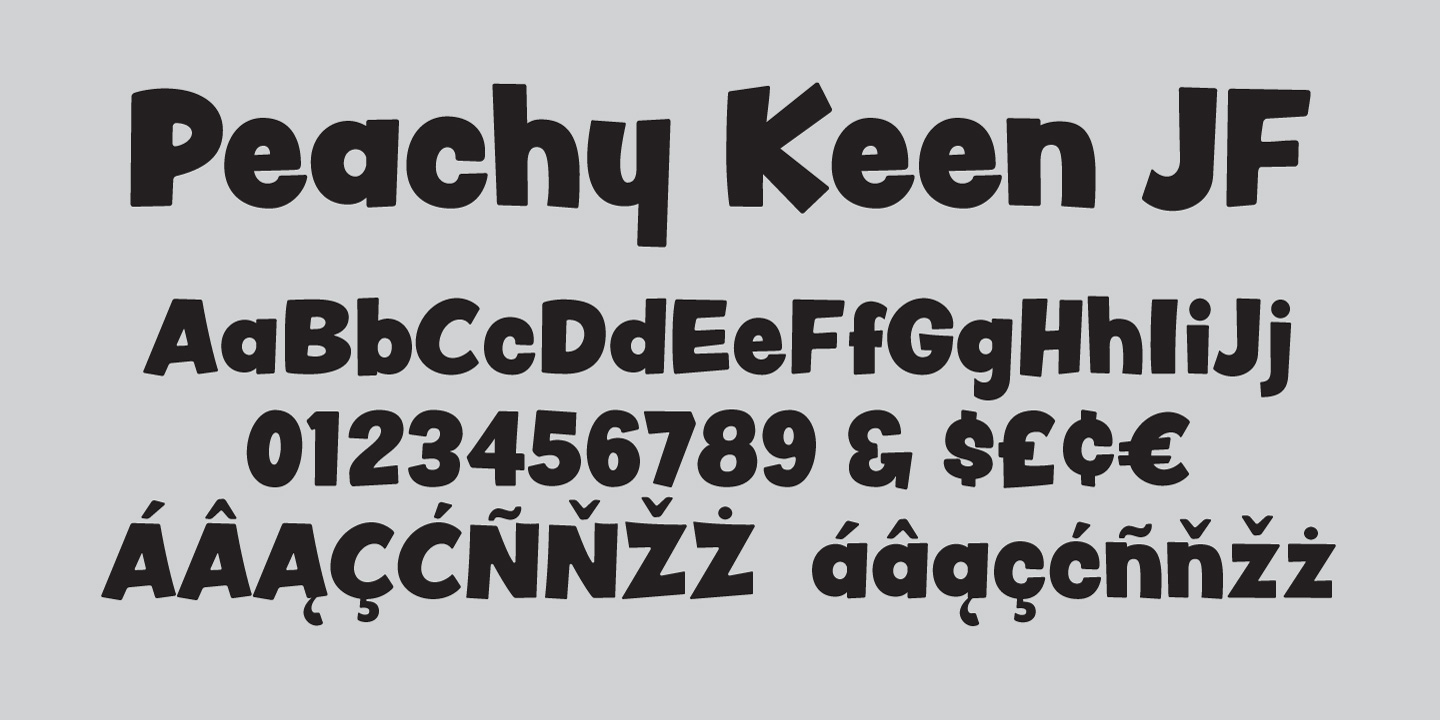
Peachy Keen JF Font excels in various design applications including fruit packaging, summer festival posters, cheerful branding, juice bar logos, children's book covers, party invitations, sweet shop signage, and vibrant social media graphics. This delightful typeface adapts wonderfully to both sunny digital campaigns and colorful print materials, making it perfect for designers seeking warmth and joyful personality in their visual communications.
Peachy Keen JF Font generates excitement among creative professionals due to its sweet character and cheerful styling that instantly conveys happiness and optimism. The font's friendly letterforms and warm proportions create an immediate sense of joy and summer vibes. Its peachy personality makes it particularly appealing for brands wanting to communicate freshness, friendliness, and positive energy in their visual identity.
The Peachy Keen JF Font family includes multiple weights and styles such as Regular, Bold, Light, Outline, and Shadow variations. Each family member maintains cheerful design principles while offering distinct sunny characteristics. The Light weight provides gentle sweetness for delicate applications, while the Bold version delivers vibrant impact for attention-grabbing headlines and festive celebrations.
Cheerful designers frequently choose Peachy Keen JF Font Free Download for projects requiring both joyful appeal and brand memorability. This typeface demonstrates exceptional versatility across lifestyle industries including food and beverage, children's products, entertainment, and summer brands. Its peachy character allows organizations to communicate positivity while maintaining excellent readability and warm visual charm that spreads happiness and creates memorable brand experiences.